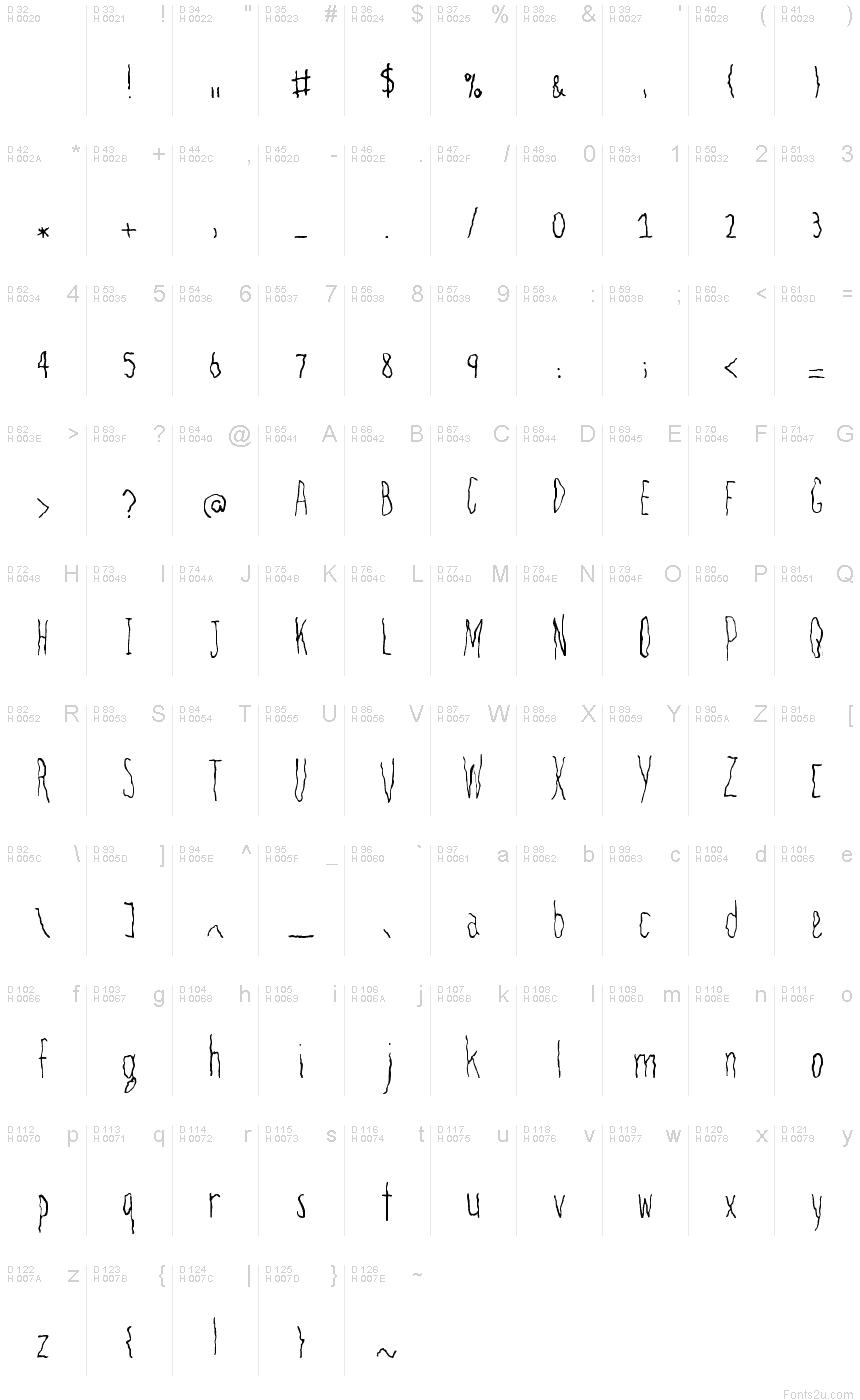
Filamental
Filamental font by Stimuleye Fonts is a free handwritten typeface that looks like letters drawn with a shaky wire or glowing filament. Tall, spindly strokes wobble as they rise, giving each word a restless, electric energy. The lines feel scratchy and slightly uneven, as if they were scribbled in a single nervous motion, which adds a raw, analog tension to anything you set in it.
Using Filamental, you can give horror posters, experimental zines, indie game titles, sci‑fi graphics, band flyers, or glitchy album covers a distinctly uneasy, hand-made vibe. This free font shines at larger sizes where its wiry details stay crisp and legible. For balance, pair Filamental with a clean geometric sans in smaller text, letting the jittery handwritten forms handle headlines and main titles.